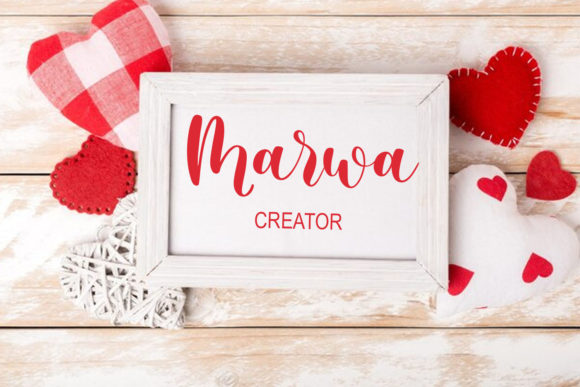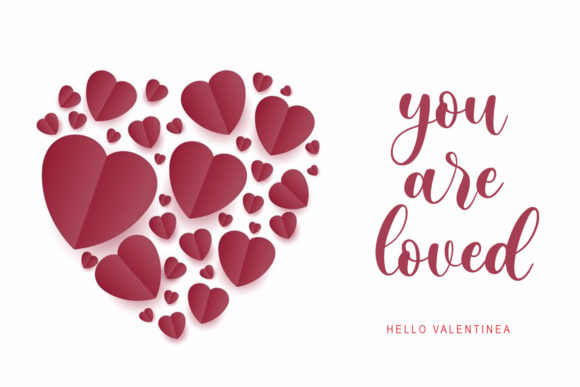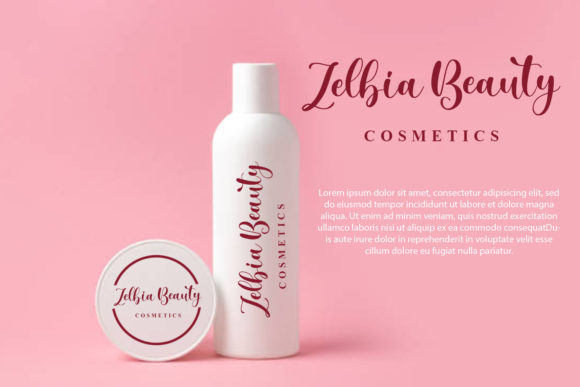
About Hello Valentine Font
Hello Valentine is a delicate and modern handwritten font that exudes elegance and style. With its thin strokes and well-balanced characters, this font is a versatile choice that complements a wide range of design projects.
The font’s modern design adds a contemporary touch to your creations, making it a perfect choice for various applications. Whether you’re designing wedding invitations, crafting social media graphics, or creating elegant branding, Hello Valentine’s clean and sophisticated aesthetic will enhance the visual appeal of your work.
One of the standout features of Hello Valentine is its extensive set of glyphs and swashes, made accessible through its PUA encoding. This means you have the freedom to easily access and incorporate a variety of alternates and decorative elements into your designs. This versatility allows you to create truly unique and personalized pieces that capture your artistic vision.
When it comes to wedding invitations, Hello Valentine shines as a font that adds a touch of romance and refinement. Its thin strokes and flowing characters lend an air of sophistication, making it an ideal choice for setting the tone of an elegant and memorable event.
In branding projects, Hello Valentine makes a strong statement with its modern and chic appearance. Whether it’s on logos, business cards, or packaging, the font’s distinctive style adds a level of professionalism and aesthetic appeal that resonates with your target audience.
Additionally, the font’s versatility extends to quotes, greeting cards, and any other design that requires a personalized touch. Its well-balanced characters and elegant curves ensure that each word is presented beautifully, capturing the essence of the message you want to convey.
In summary, Hello Valentine is a thin, modern handwritten font that adds a touch of sophistication to your designs. Its PUA encoding allows for creative exploration and customization, making it a valuable asset for various creative projects. With its well-balanced characters and timeless elegance, Hello Valentine is a font that will enhance the beauty of your work and leave a lasting impression on your audience.